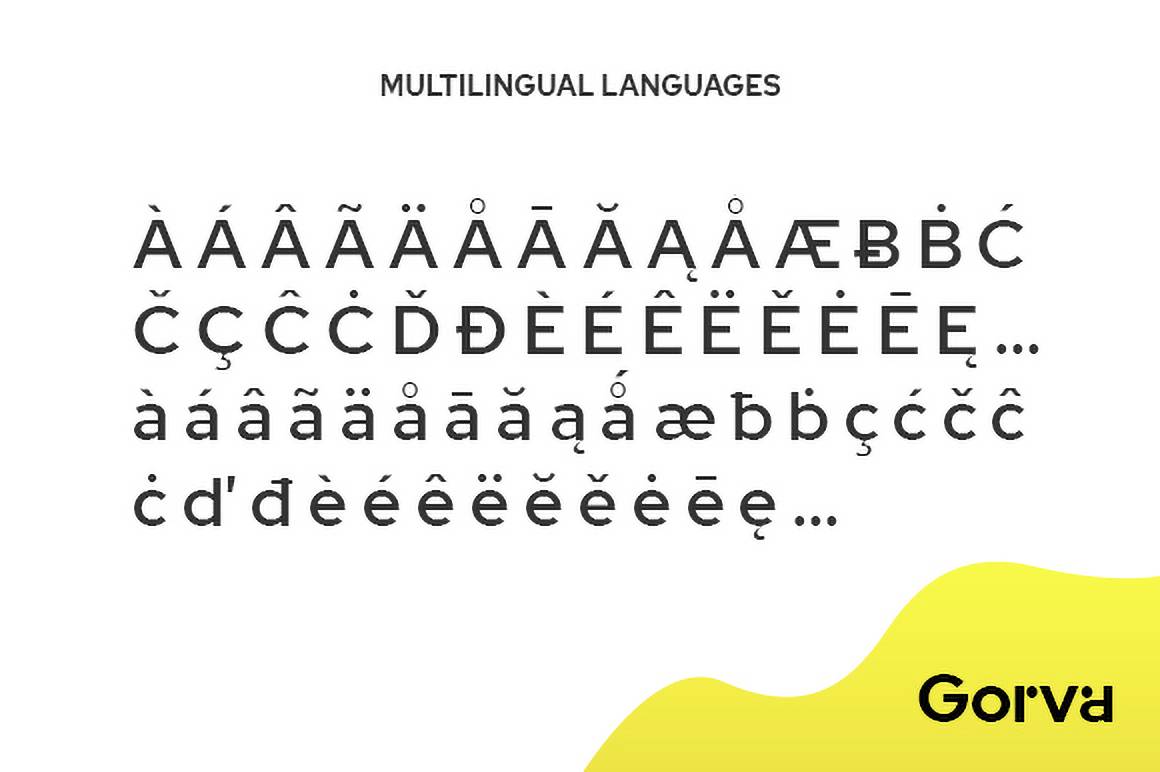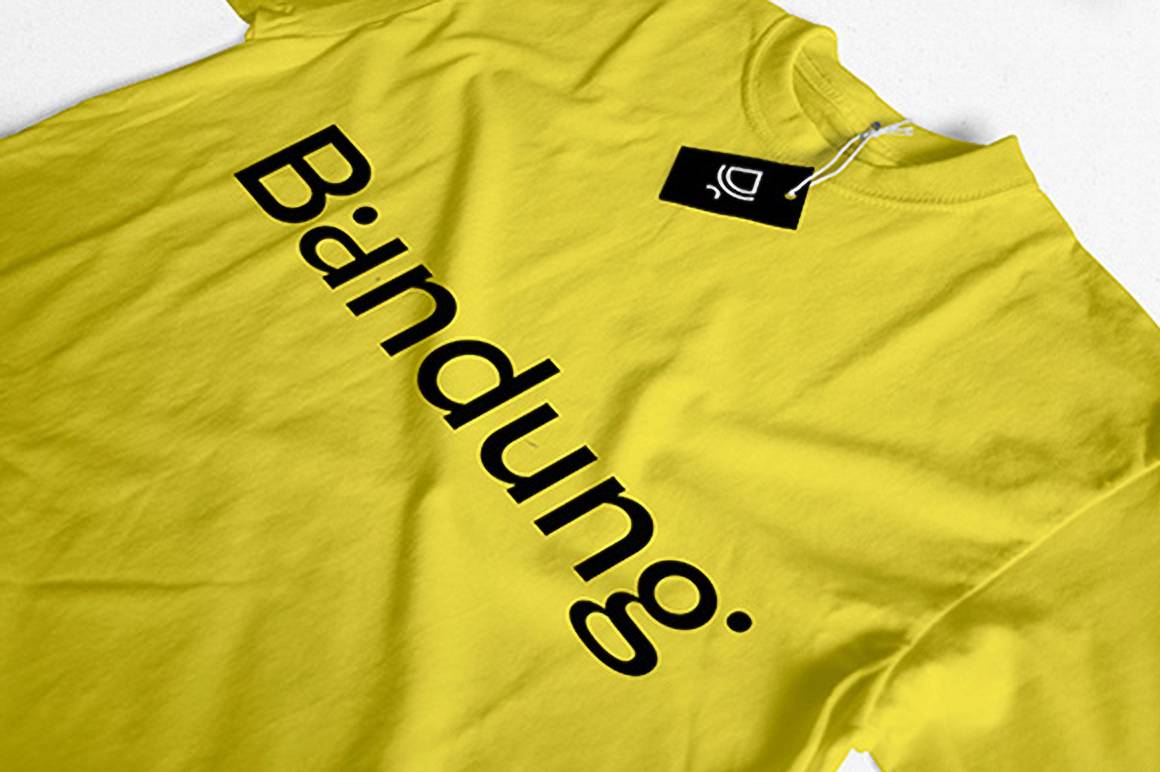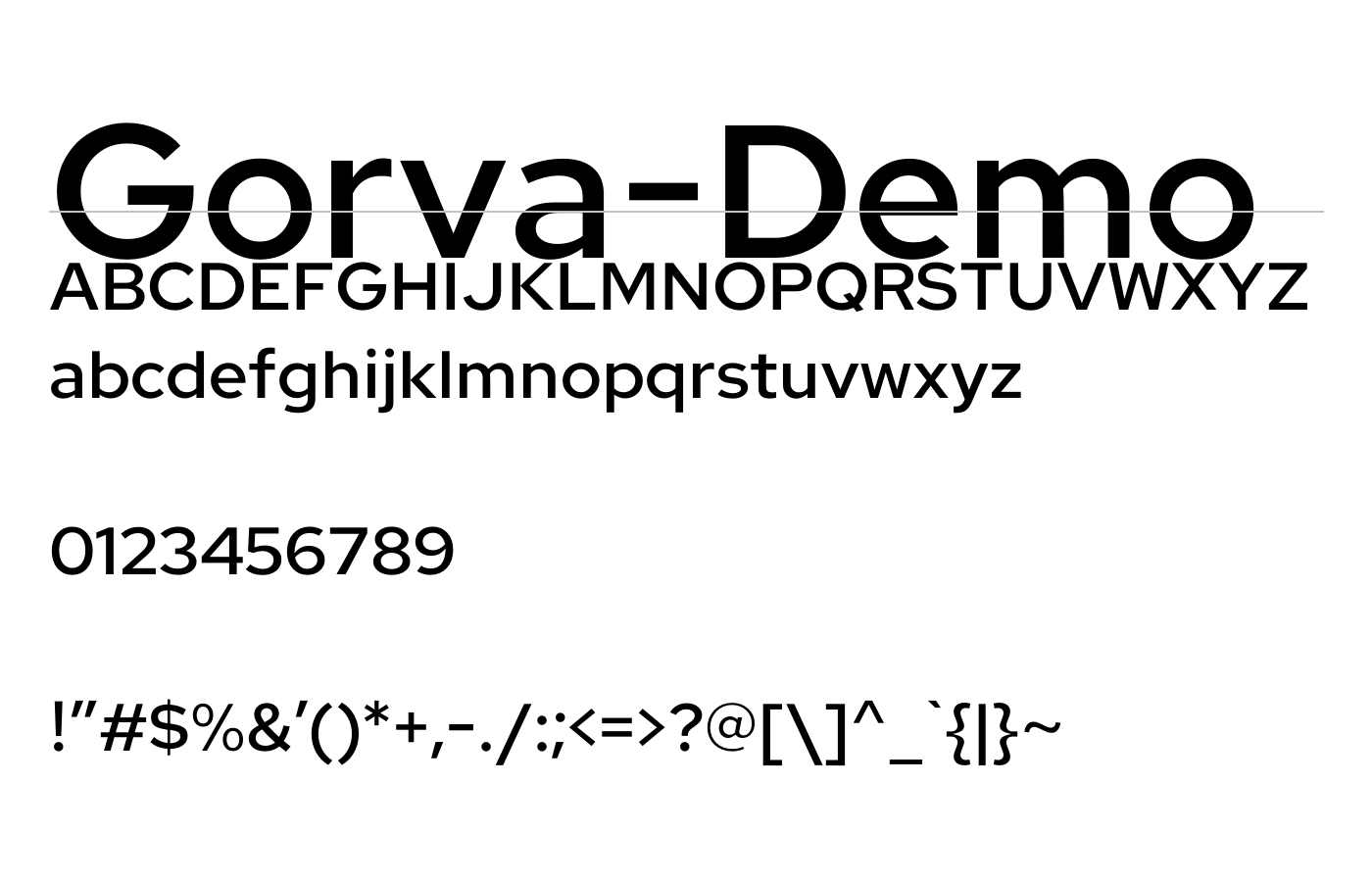
Gorva is a clean, modern sans serif font with a balanced, regular weight and a straightforward geometric structure. Its open letterforms, moderate x-height, and crisp edges make it highly legible and versatile, ideal for both digital and print uses. This font conveys a professional yet approachable tone, perfect for branding, editorial content, and web design where clarity and simplicity are key.
Gorva Font
About Gorva Font
| Font family | Gorva Font |
| Designer | Dadan Sukma Nurdiansyah | Dasukreation |